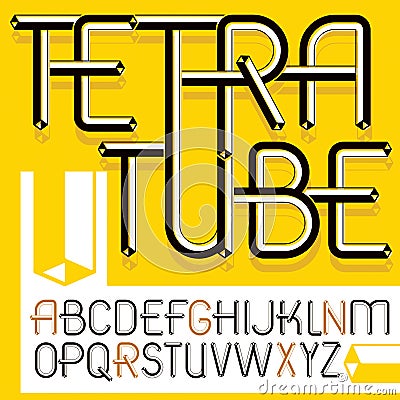
Set Of Trendy Modern Vector Capital, Upper Case English Alphabet Letters Isolated. Retro Font, Typescript For Use As Business
Set of trendy modern vector capital, upper case English alphabet letters isolated. Retro font, typescript for use as business Vector Illustration
Set of trendy modern vector capital, upper case English alphabet letters isolated. Retro font, typescript for use as business poster design elements. Created using dimensional tetra pipe